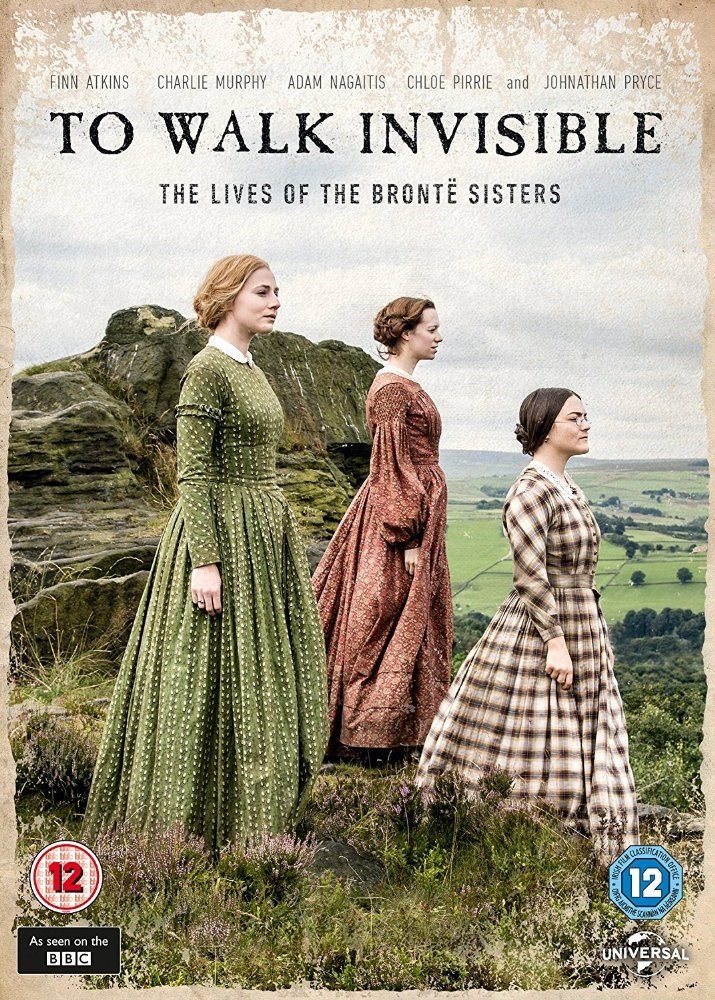
To Walk Invisible Font
DramaTo Walk Invisible is a British drama film that explores the lives of the Bronte sisters, Charlotte, Emily, and Anne, as they write and publish their famous novels.
The title font in the film poster resembles Caslon Antique, designed in 1894 by Berne Nadall. The serif typeface has a unique, worn-out appearance due to the reuse of metal type by early printers. Free alternatives include Caslon Antique from OPTIFont or Dieter Steffmann's Caslon Antique. Both these free fonts are available for download in the Fonts USed Section.